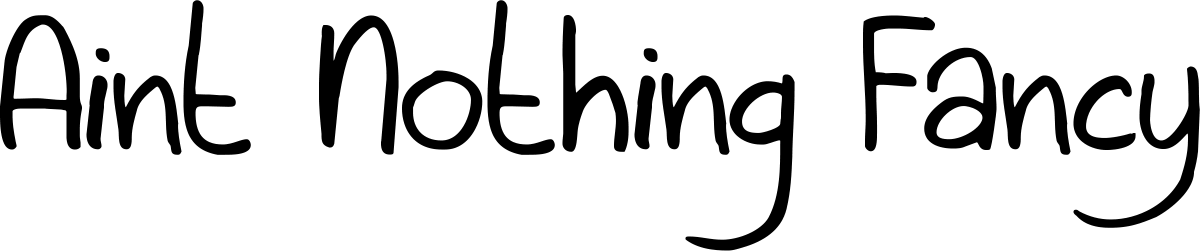
Aint Nothing Fancy Font
Are you searching for a script font? If so, you came to the right place. Aint Nothing Fancy works great for all kinds of text-based designs. The letters give a friendly and casual vibe. Download it right now and enjoy the result. By the way, don’t forget to check the other fonts too, we bet you’ll love them.